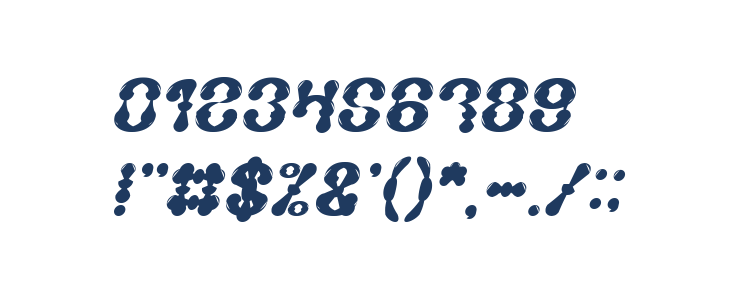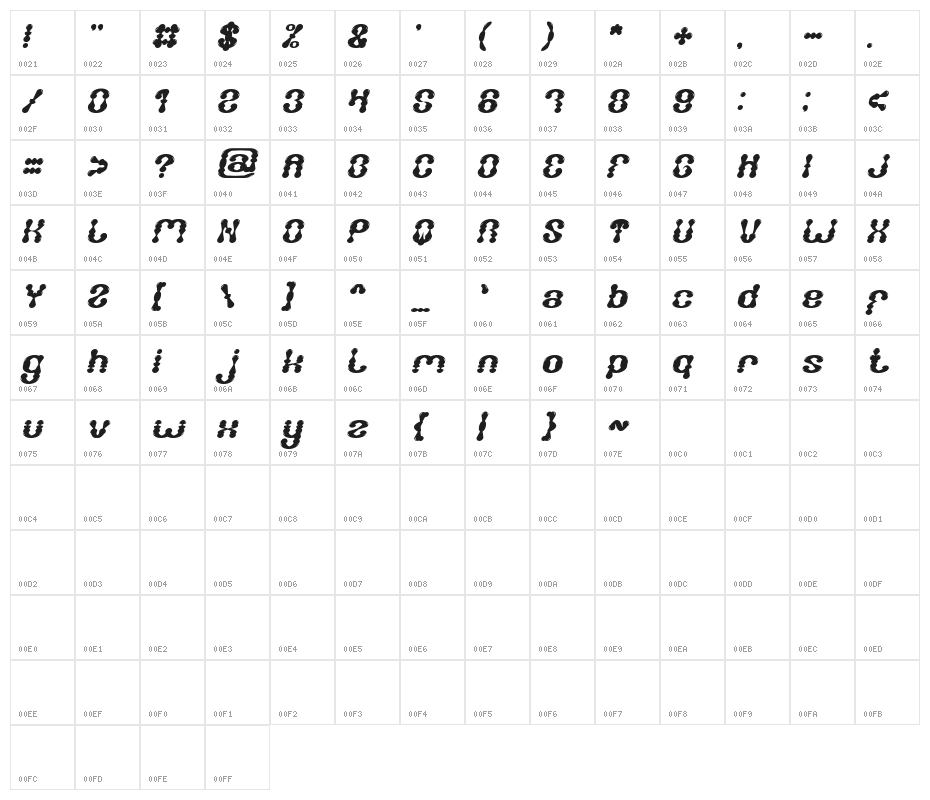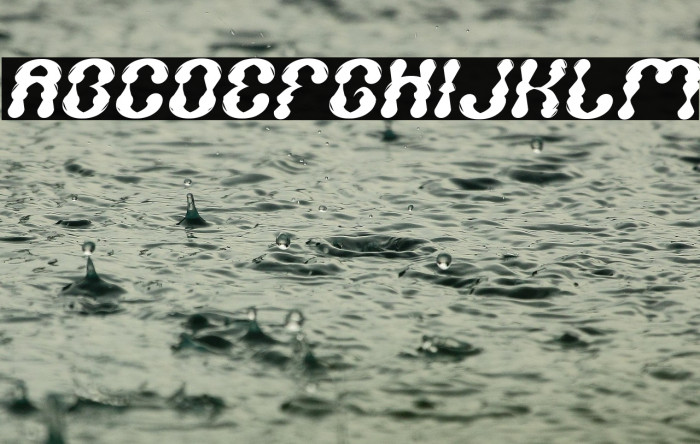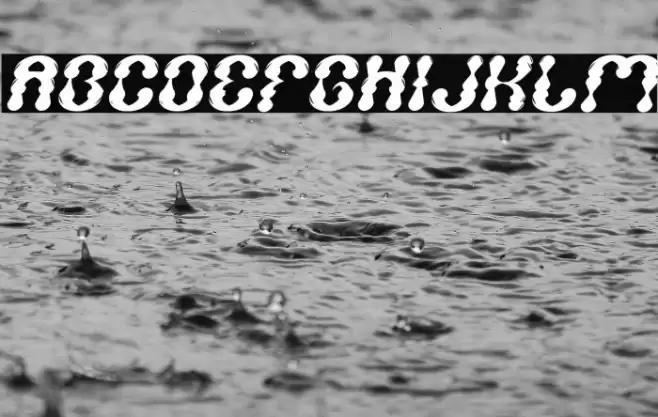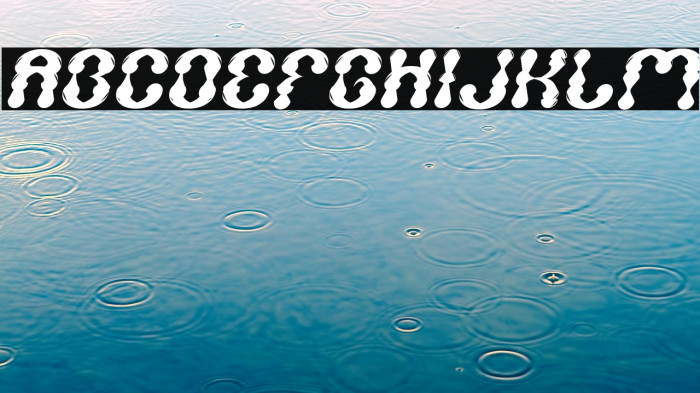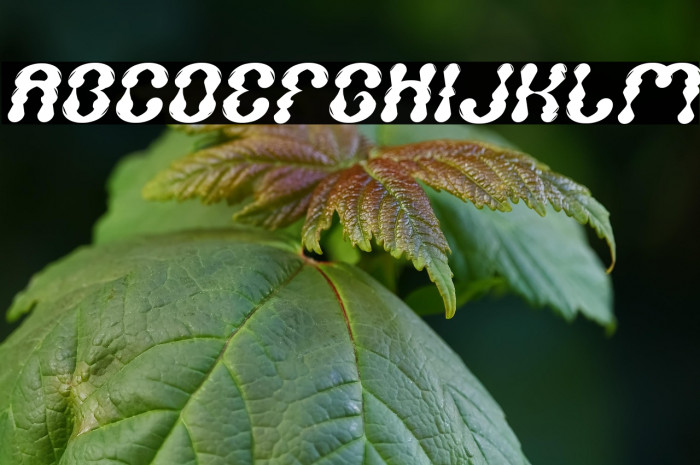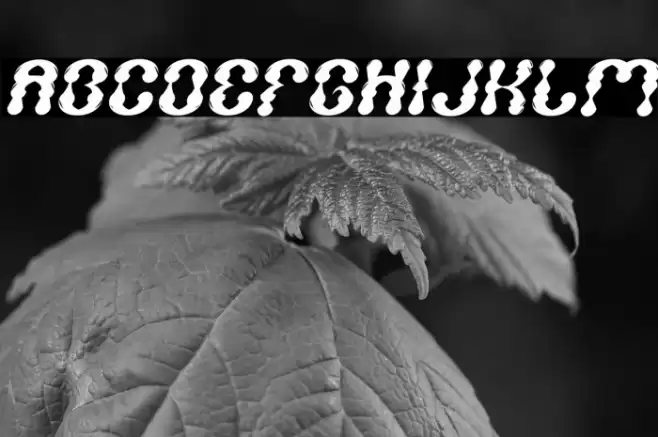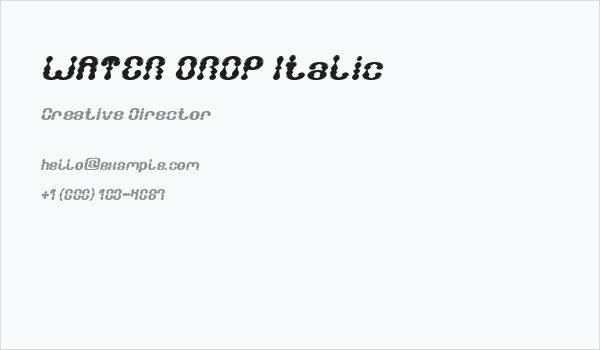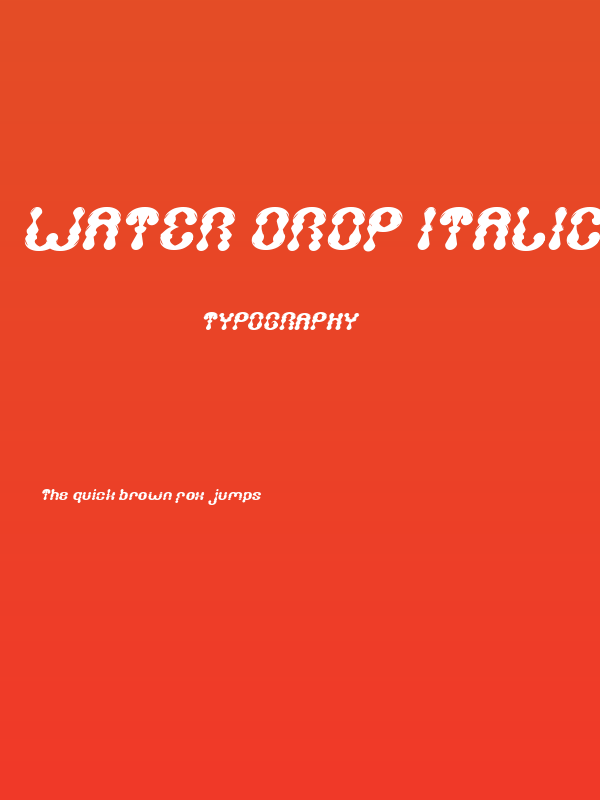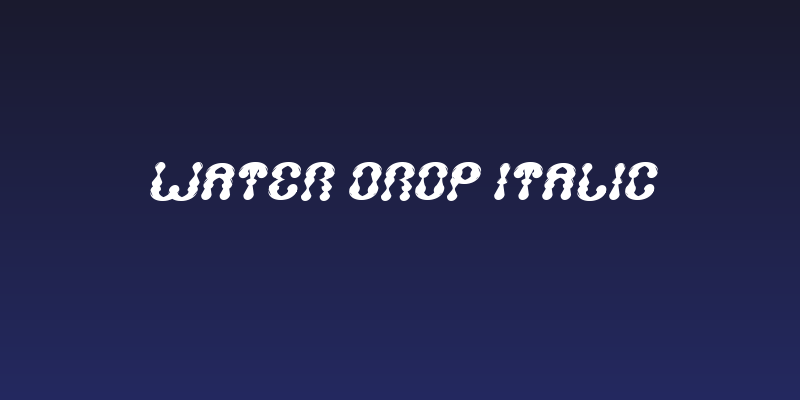
WATER DROP Italic Font
WATER DROP Italic Description
This font features a unique and playful design, characterized by its water droplet-like shapes that form each letter. The letters have a fluid and organic appearance, with rounded edges and varying thickness that mimic the natural flow of water. This creates a dynamic and eye-catching effect, making it ideal for creative and artistic projects. The font maintains a consistent style across uppercase, lowercase, numbers, and special characters, ensuring versatility in its application. Its distinctive style makes it stand out, while still being legible and functional.
| Proposed Projects | Ideal for creative projects such as children's book covers, playful branding, event invitations, and artistic posters. |